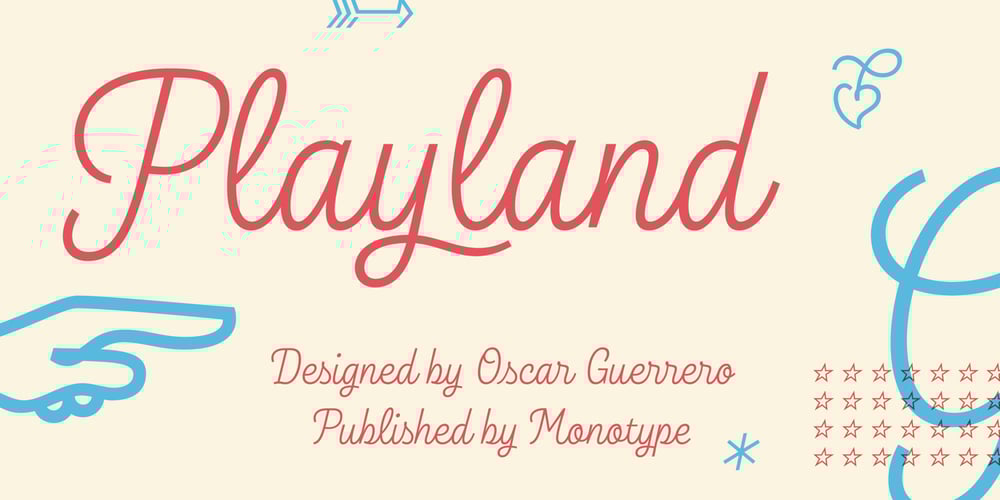
Playland Font Family was designed by Oscar Fernando Guerrero Canizares and published by Monotype. Playland contains 1 styles and family package options. Playland is a monoline script typeface designed by Oscar Guerrero exclusively for Monotype. It was inspired by the lettering in Italian urban signage. The Playland typeface has a copperplate calligraphy structure and its letterforms explore different endings in some letters which gives it an informal and fresh touch to words. Playland has a unique and fresh appearance. Unlike similar typefaces that are lighter and more spontaneous, the design of Playland features careful and deliberate curves that give it a slightly more formal and firm look. Its design can lend itself to branding projects, advertising, packaging and editorial purposes. It has a versatile character set, with an attractive suite of OpenType typographic features including ligatures, swashes, alternates and icons that increase its possibilities of use.